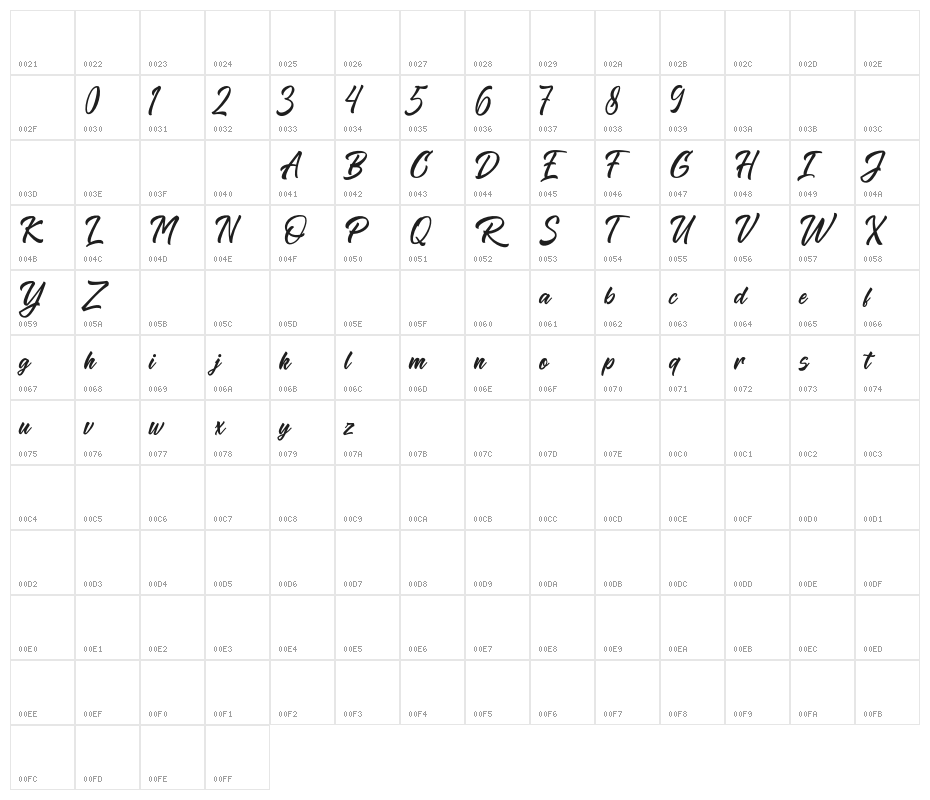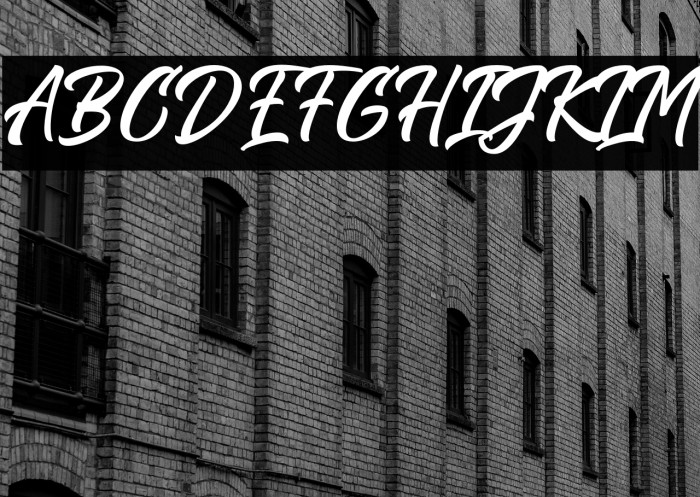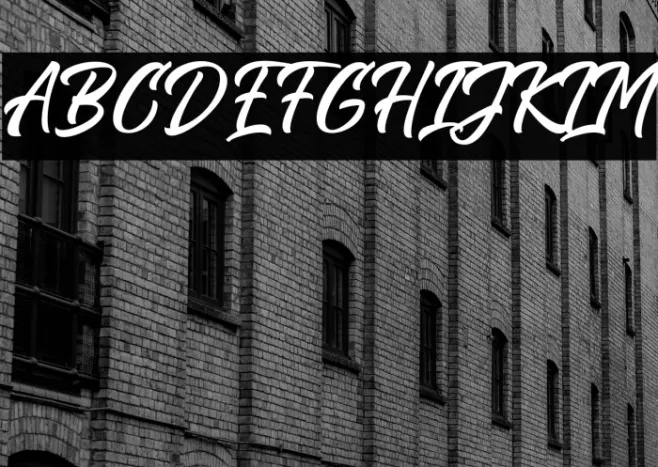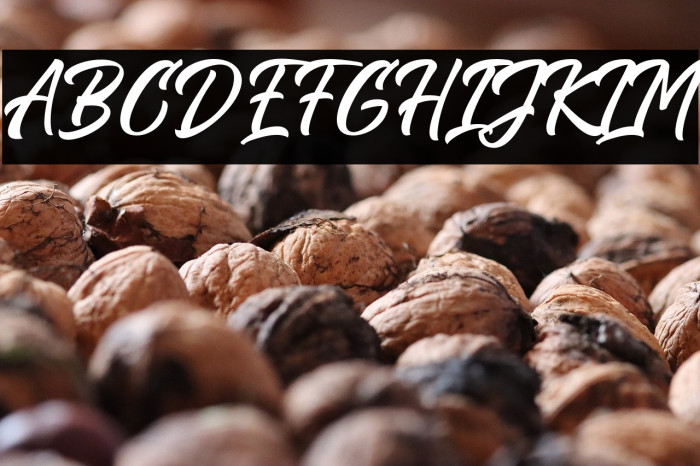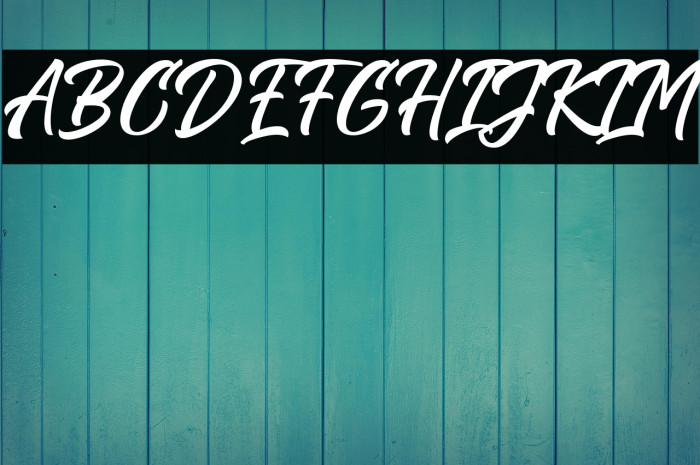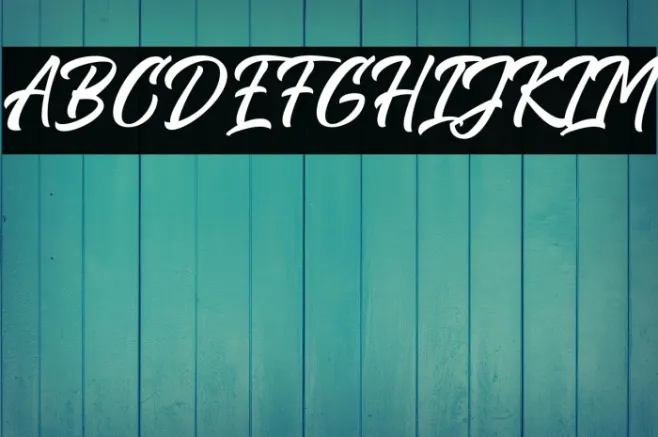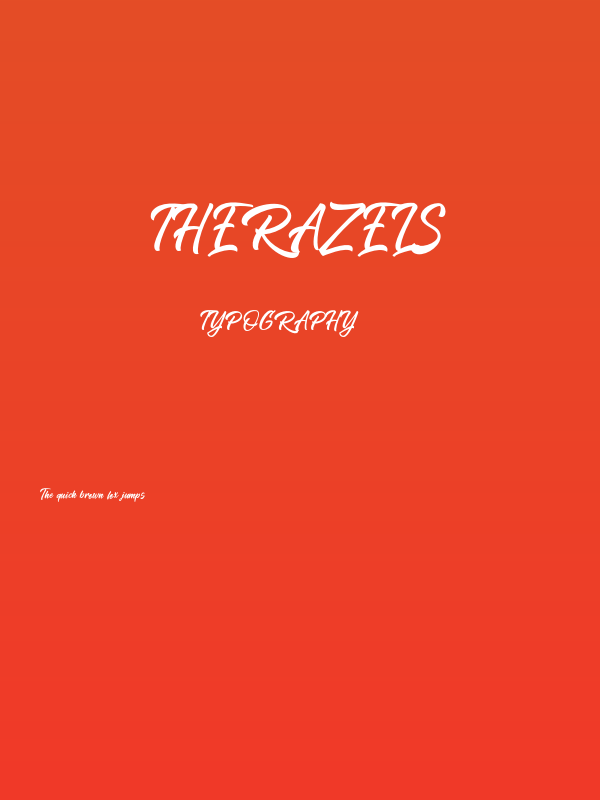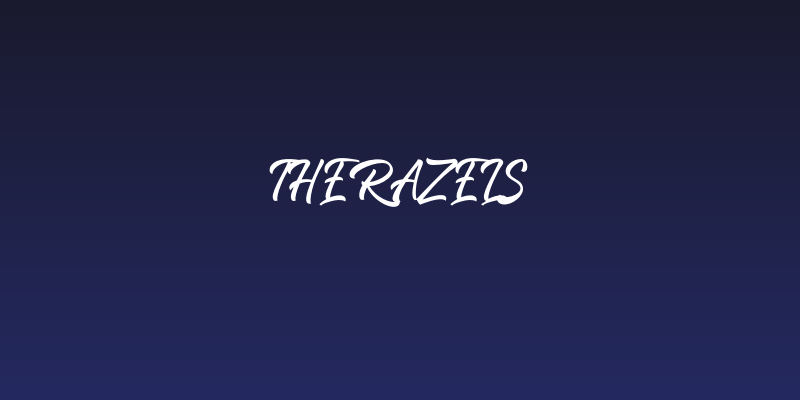
TheRazels Font
TheRazels Description
This font exhibits a dynamic and flowing script style, characterized by its elegant and cursive letterforms. The strokes are smooth and connected, giving it a handwritten appearance. The uppercase letters are bold and sweeping, while the lowercase letters maintain a consistent flow with slightly more subtle curves. The numbers follow the same cursive style, ensuring uniformity across all characters. This font exudes a sense of sophistication and creativity, making it suitable for projects that require a personal touch.
| Proposed Projects | Ideal for wedding invitations, greeting cards, branding, and logo design where a personal and elegant touch is desired. |